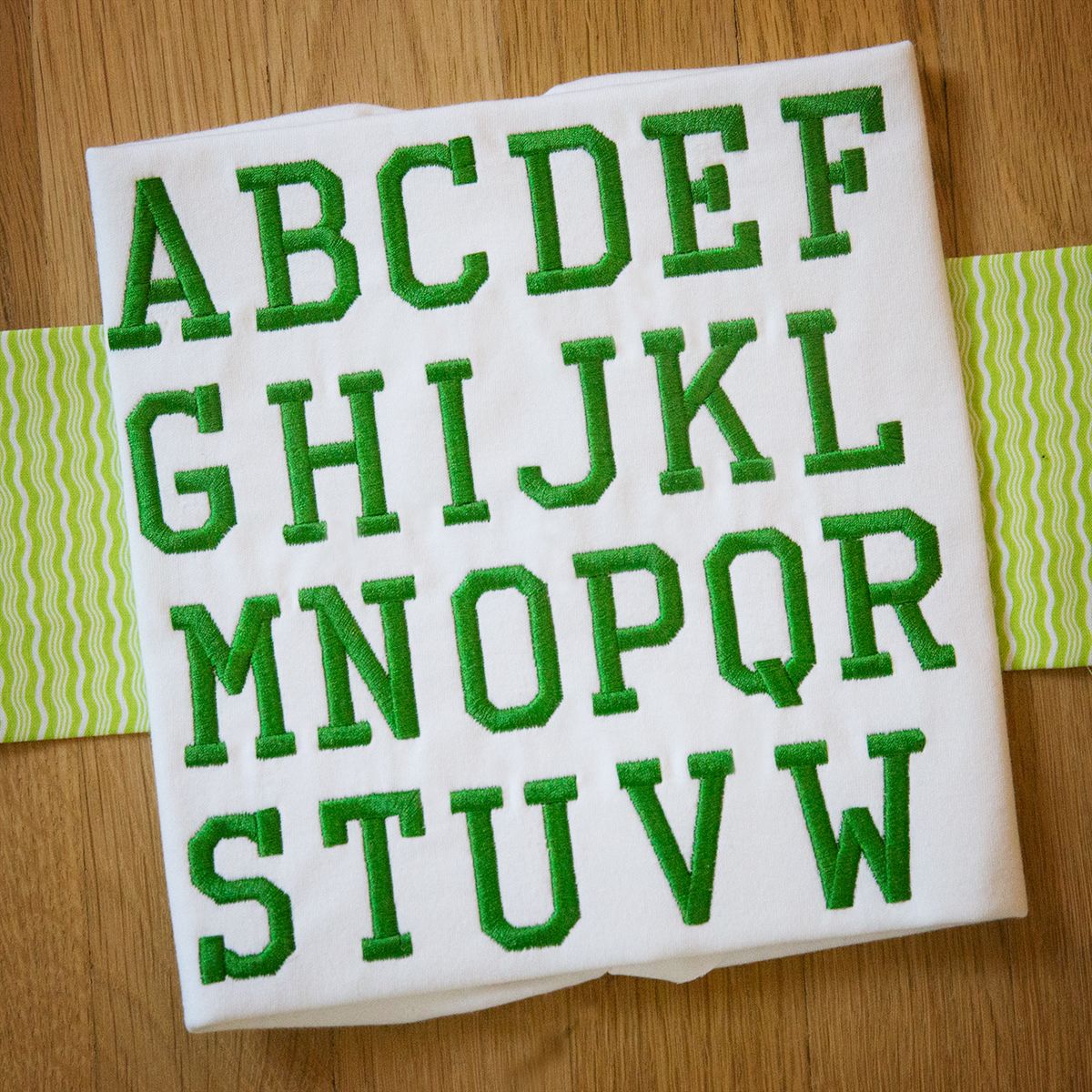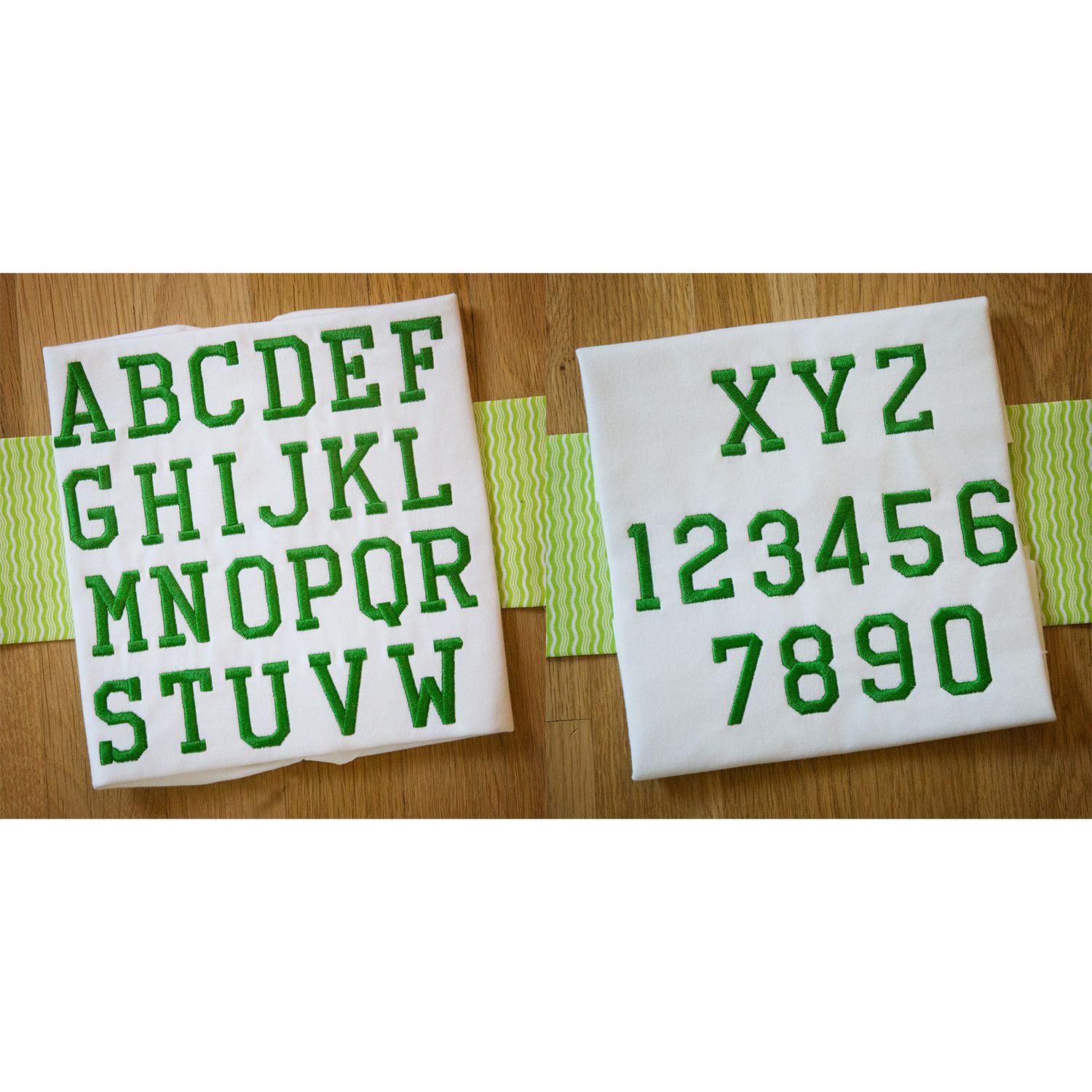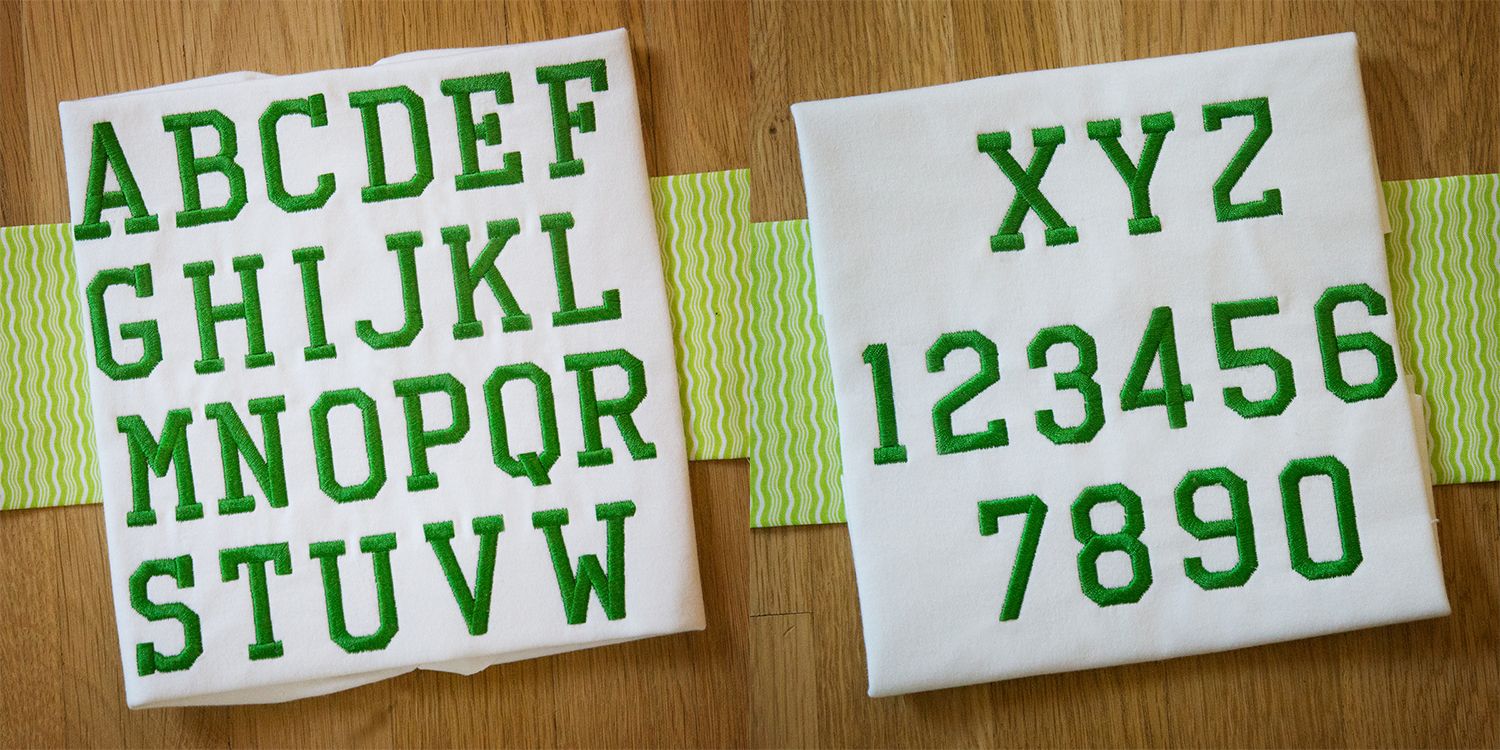
Collegiate Satin Stitch Embroidery Font
Here is a wonderful bold font ..great for sports and college projects! All of our font alphabets are 100% manually digitized to bring you maximum stitch quality.